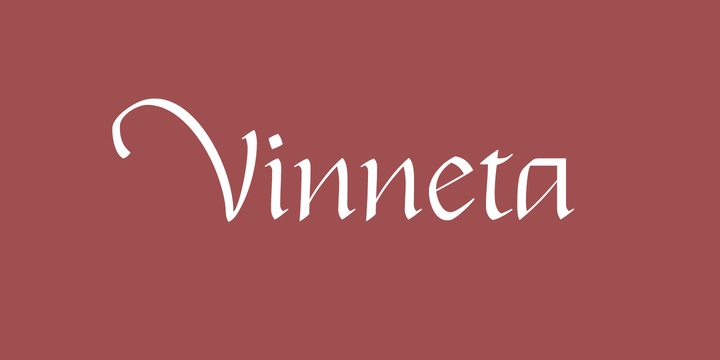
Vinneta Font
Vinneta Font is perfect for wine industry branding, vineyard marketing, gourmet restaurant menus, wine tasting events, luxury food packaging, Mediterranean tourism, artisanal products, elegant hospitality, culinary publications, and sophisticated beverage campaigns.
What makes Vinneta Font exciting is its vineyard elegance that captures the sophisticated essence of wine culture and artisanal craftsmanship through gracefully crafted letterforms. This refined typeface combines oenological tradition with contemporary sophistication, creating a personality that communicates quality, heritage, and authentic wine expertise. The font's vineyard-inspired character and sophisticated appeal make it perfect for wine brands, culinary establishments, and luxury food companies seeking to evoke the romantic atmosphere of rolling vineyards and the refined culture of wine appreciation.
The Vinneta Font family includes Regular, Bold, Light, Medium, Elegant, Vintage, Condensed, and Artisan variants. Each weight maintains the font's vineyard character while providing comprehensive typographic flexibility for wine brand identity systems and culinary design applications across diverse hospitality platforms.
Whether you're developing wine brand identities, creating vineyard marketing materials, designing gourmet restaurant branding, or building luxury food campaigns, Vinneta Font delivers unmatched vineyard appeal and culinary sophistication. Its elegant presence makes it perfect for wineries, gourmet restaurants, luxury food producers, and hospitality brands seeking authentic wine culture representation.
The font's refined proportions and vineyard details create an sophisticated reading experience that transports audiences to sun-drenched vineyards and elegant wine cellars. Each letterform has been carefully crafted to evoke the artisanal tradition of winemaking while maintaining excellent readability across modern culinary applications.
This versatile typeface excels in hospitality environments, offering designers the sophistication needed for comprehensive wine brand communication strategies. The extensive character set includes vineyard alternates, elegant ligatures, and culinary symbols for wine industry market positioning and vineyard brand storytelling.
Embrace the power of vineyard design that celebrates wine culture and authentic artisanal craftsmanship traditions.